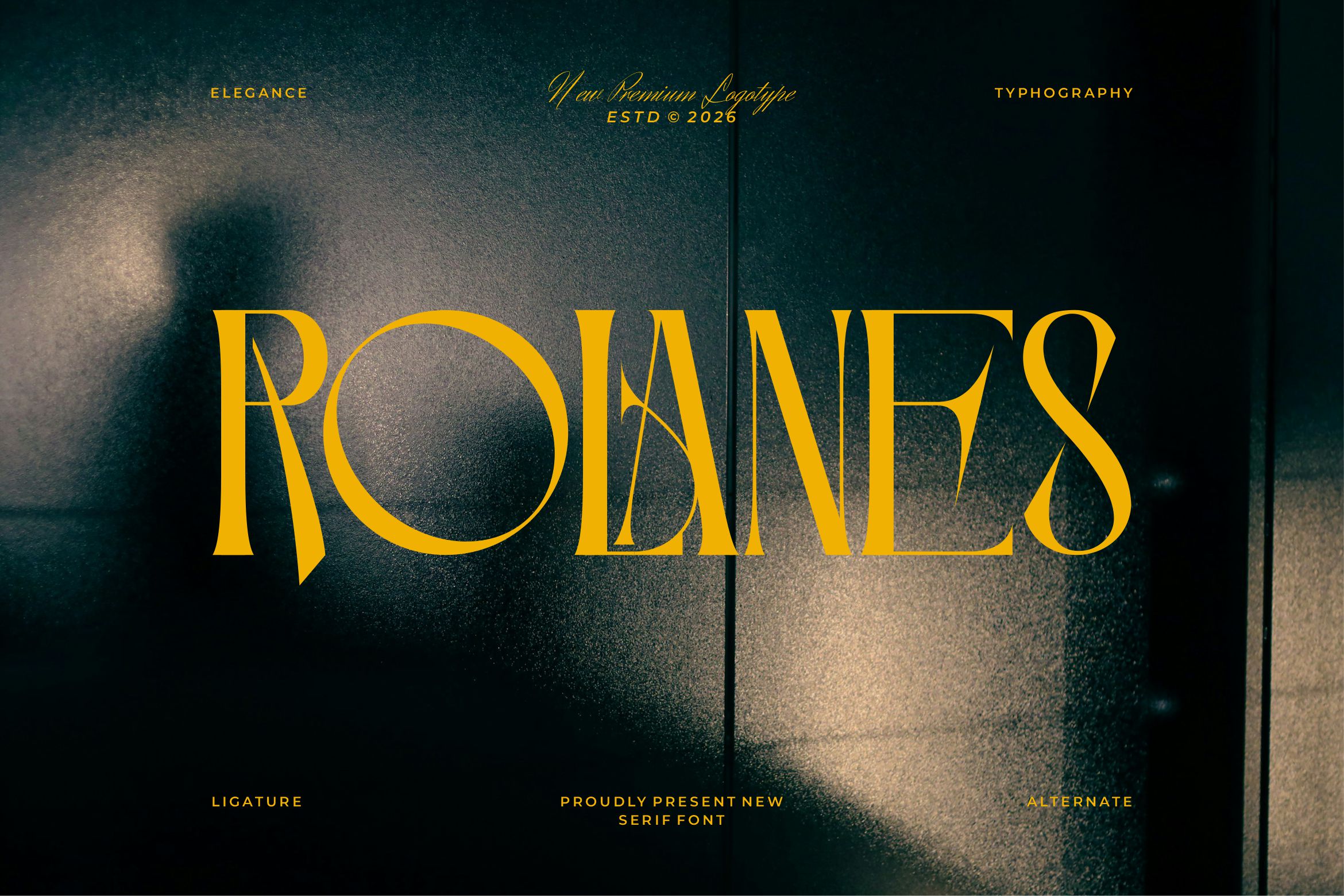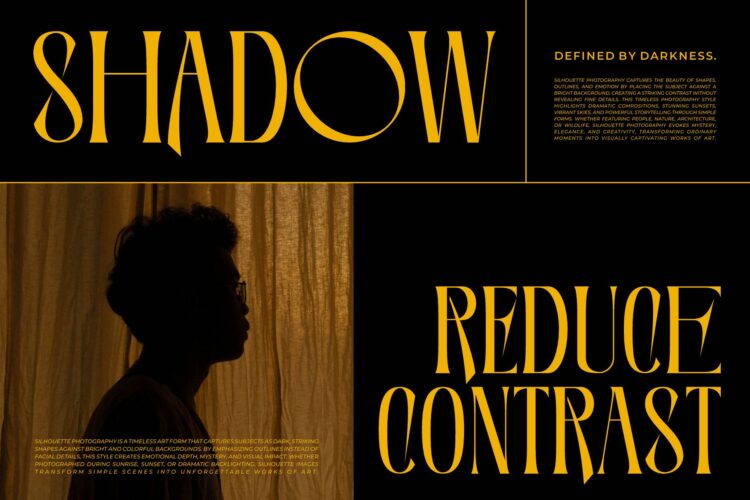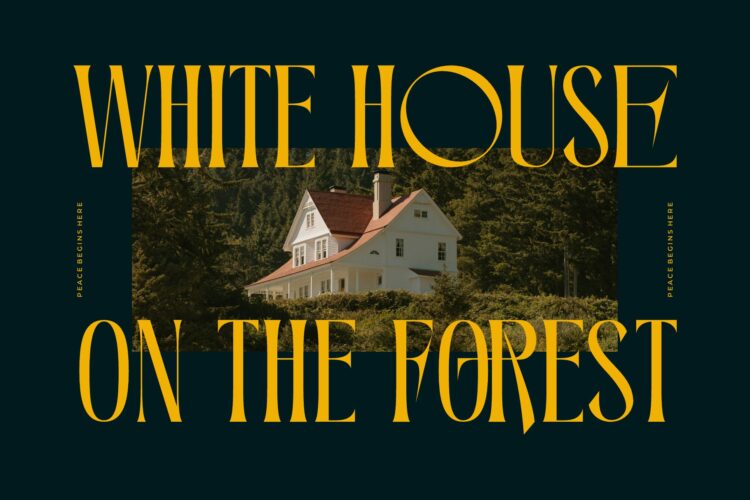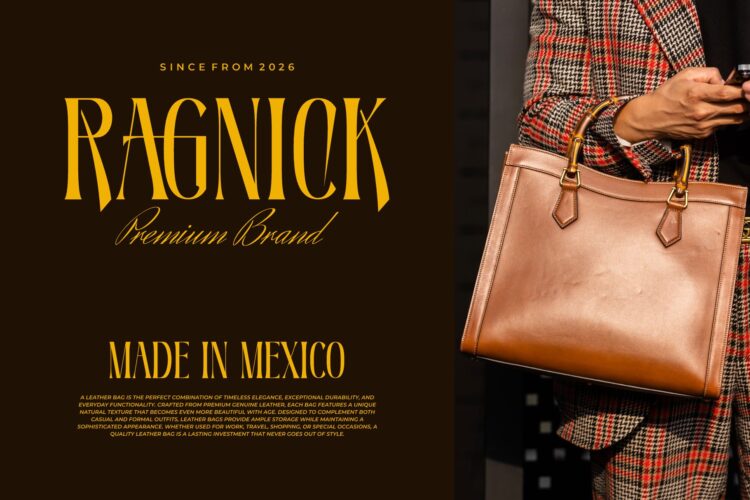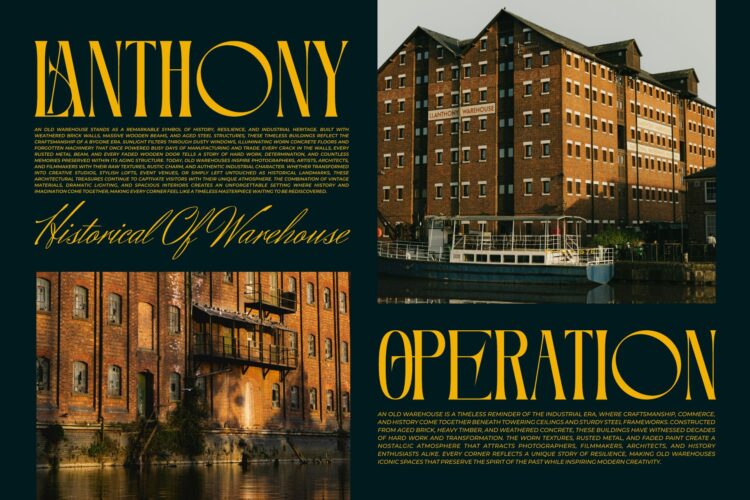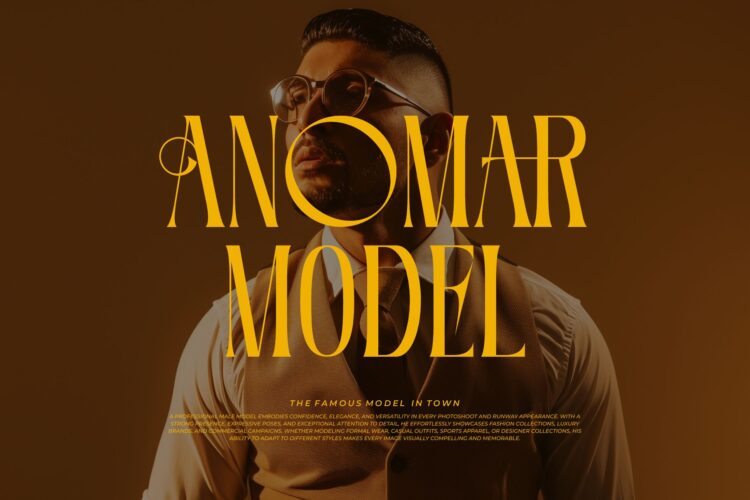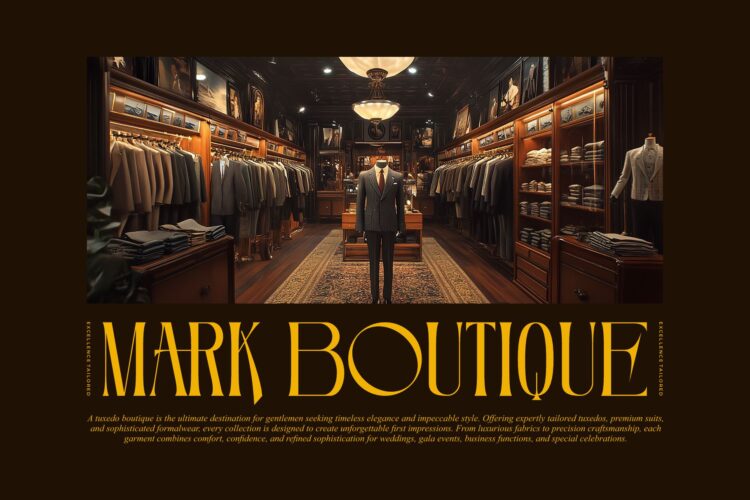
Rolanes
Rolanes is a versatile, modern and elegant serif font.It has a unique style with stylistic, alternates, ligatures features.
Create unique & beautiful logotype, use it as an elegant solution for your next magazine layout, or choose Pherome for any graphics that require a sleek look with a elegant flair.
Rolanes || Elegant Serif Font